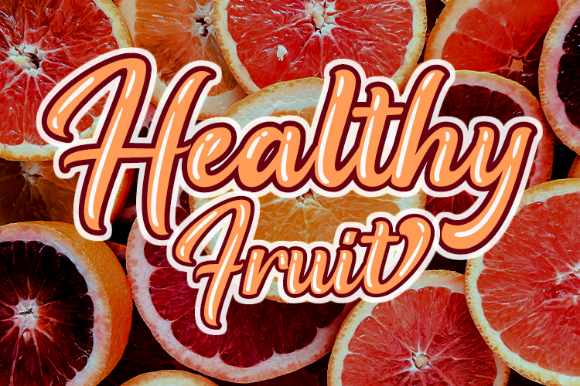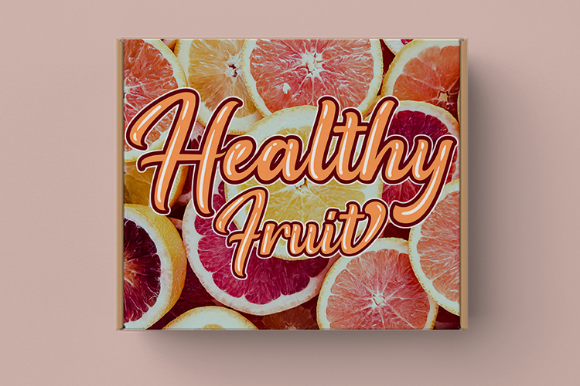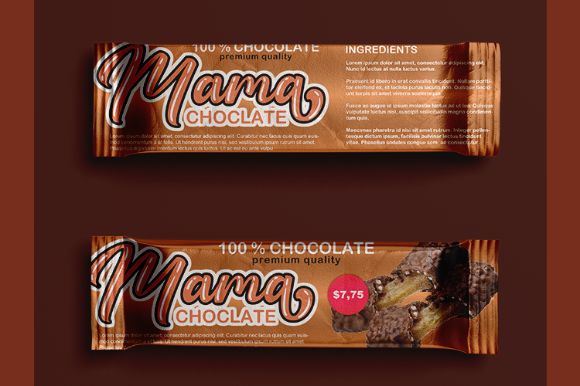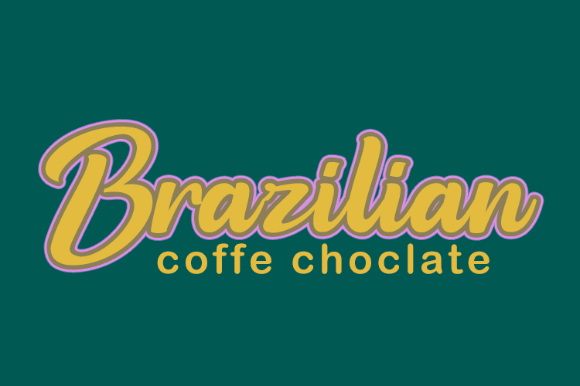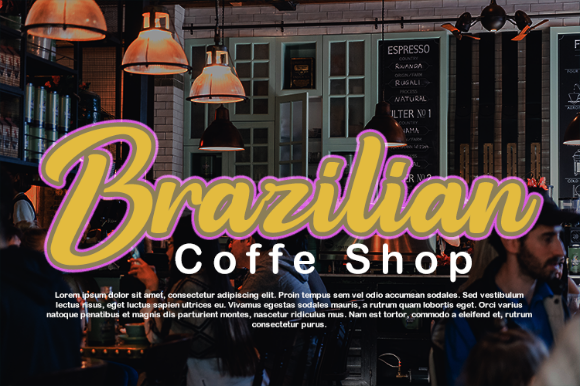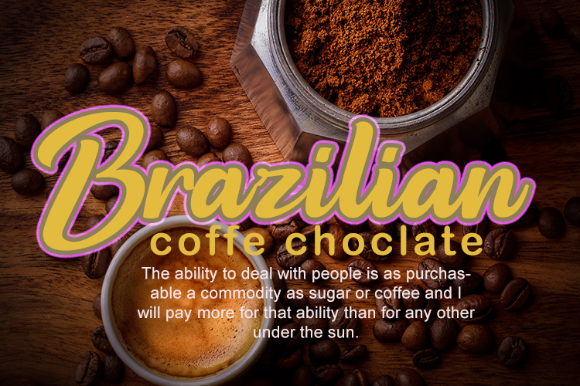
Introduction to Guttawa Font
As a designer, there’s nothing quite like that moment of creative flow – when the ideas start pouring in and the project begins to take shape. You’re brainstorming, sketching, and experimenting, and suddenly, the perfect font appears. For many, that font is the Guttawa Font. This fun and bold handwritten font is a game-changer for any creative project, adding a touch of personality and whimsy that sets it apart from the rest.
Whether you’re working on a free download or a high-quality design resource, the Guttawa Font is a valuable addition to your toolkit. Its unique style and transparent background make it perfect for projects that require a little extra flair. And with its high-quality design, you can trust that your work will look professional and polished – even with a bold, handwritten font.
So, what makes the Guttawa Font so special? Let’s take a closer look and find out.
Key Features of Guttawa Font
- Unique, hand-drawn design ideal for creative projects and artistic endeavors
- Unique characteristics include bold lines, subtle textures, and a mix of modern and vintage elements
- Perfect for designers looking for a distinctive and creative font to elevate their design projects
Honest Review: Guttawa Font
I recently came across the Guttawa Font while searching for design resources for my current creative project. I was drawn to its unique and modern aesthetic, which I thought would be perfect for adding a touch of sophistication to my designs.
- High-Quality Design: The Guttawa Font has a clean and crisp design that makes it perfect for a wide range of creative projects.
- Limited Font Styles: The Guttawa Font only comes in a few different font styles, which may limit its versatility in certain designs.
- Not Ideal for Large Text: The font’s design may not be suitable for large text, as it can become difficult to read.
Overall, I was impressed with the Guttawa Font’s design and versatility. While it may have some limitations, it’s definitely a valuable resource for designers looking for a high-quality, modern font.
Tips for Getting the Most Out of Guttawa Font
Use the Guttawa Font in combination with other design elements to create a visually appealing design. Experiment with different font sizes, colors, and styles to add depth and interest to your design. Take advantage of the font’s transparent background to create a clean and modern look.
The Guttawa Font is suitable for a variety of creative projects, including logos, brochures, business cards, and social media graphics. Its high-quality design and transparent background make it a great choice for designers looking to add a touch of sophistication to their designs.